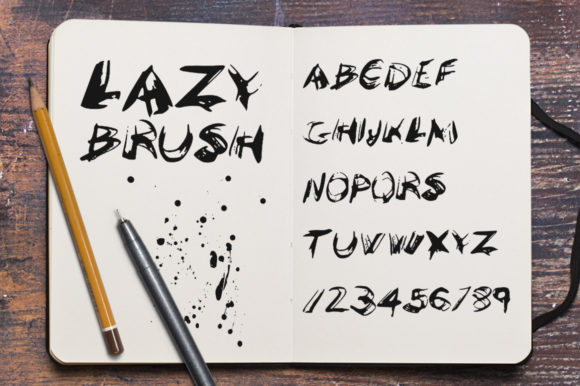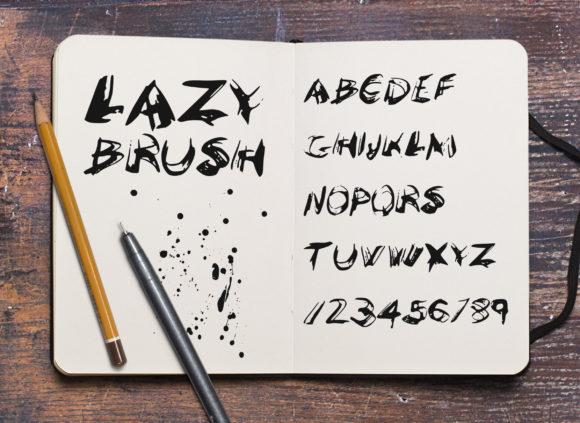
Introduction to LazyBrush Font
Remember that moment when you were working on a creative project, and you just wanted to add a personal touch to make it stand out? Perhaps it was a handmade card, a DIY invitation, or even a custom journal – whatever it was, I’m sure you wished for a way to infuse it with your unique personality.
That’s where the LazyBrush Font comes in – a gorgeous and unique handwritten font that brings any project to life. This stunning font results from the pairing of a brush pen and pencil, making it incredibly endearing and authentic. With its high-quality design and transparent background, it’s a valuable resource for designers looking to add a personal touch to their work.
Whether you’re a seasoned designer or a DIY enthusiast, the LazyBrush Font is a must-have design resource that’s waiting to be downloaded for free. So, get ready to unleash your creativity and give your projects that special something with this amazing font!
Key Features of LazyBrush Font
- High-quality design resource perfect for creative projects, offering a unique, hand-drawn feel.
- Comes with a transparent background, allowing for seamless integration into various design layouts.
- Supports a wide range of languages, making it a versatile design resource for various projects.
Honest Review: LazyBrush Font
I recently stumbled upon the LazyBrush Font and I must say, it’s a great addition to any designer’s toolkit. The LazyBrush Font is a high-quality font that’s perfect for creative projects where a touch of whimsy is needed.
What works well: ✨ The LazyBrush Font is incredibly versatile and can be used in a variety of contexts, from branding to editorial design. Its unique characters and transparent background make it a standout choice for designers looking to add some personality to their work. Additionally, the LazyBrush Font is available for free download, making it an accessible design resource for creatives of all levels.
Some limitations: ⚠️ While the LazyBrush Font is a great choice for many projects, it may not be suitable for more formal or conservative designs. The font’s playful nature may not be a good fit for clients who prefer a more traditional look and feel. Additionally, some users may find the font’s transparent background to be a bit distracting in certain contexts.
Overall, I’m really impressed with the LazyBrush Font and I think it’s a great addition to any designer’s collection. Its unique features and high quality make it a valuable design resource, and its free download makes it accessible to all.
- High-quality font perfect for creative projects
- Unique characters and transparent background
- Accessible design resource for creatives of all levels
LazyBrush Font
The LazyBrush Font is a free design resource that offers a high-quality, unique aesthetic perfect for creative projects. Its transparent background allows for seamless integration with various design elements.
Tips for Getting the Most Out of LazyBrush Font
Use the LazyBrush Font in conjunction with other design elements, such as images and shapes, to create a unique and visually appealing design. Experiment with different font sizes and styles to add depth and interest to your design.
The LazyBrush Font is ideal for use in creative projects, such as invitations, flyers, and brochures. Its unique aesthetic and transparent background make it perfect for use in digital design, such as social media graphics and website design.